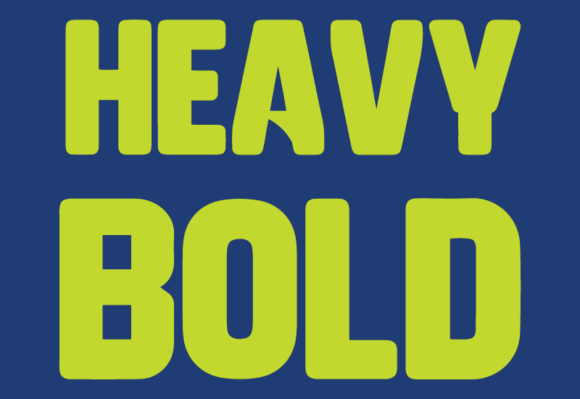
Unleash Your Creativity with the Heavy Bold Font
Have you ever been stuck in a design rut, struggling to find the perfect font to elevate your project? We’ve all been there. But what if I told you that the solution lies in a font that’s as bold as it is beautiful? Enter the Heavy Bold Font, a typeface that’s guaranteed to make your designs stand out from the crowd.
This versatile font is more than just a pretty face – it’s a powerful tool in your design arsenal. With its clean lines and bold strokes, the Heavy Bold Font is perfect for making statements in logos, headlines, and any design element that demands attention. Whether you’re a seasoned pro or just starting out, this font is sure to be a valuable addition to your toolkit.
Heavy Bold Font Key Features
- Font Family: Heavy Bold Font is a sans-serif font family designed for use in digital media.
- Unique Characteristics: Heavy Bold Font features a distinctive, bold, and heavy design with sharp lines and edges, making it ideal for headlines, titles, and other attention-grabbing text.
- Language Support: Supports a wide range of languages, including Latin, Cyrillic, Greek, and many others, ensuring its versatility in global applications.
Designer Review: Heavy Bold Font
I recently had the chance to work with the Heavy Bold Font, and I must say it’s a mixed bag. On the one hand, here are some things that really shine: ✨
- Its bold, eye-catching design is perfect for making headlines and titles stand out.
- The font is highly legible, even at smaller sizes, which is a must for any font.
- It’s incredibly versatile and works well in a variety of contexts, from digital screens to print materials.
However, there are some limitations that might hold you back: ⚠️
- The font can feel a bit overwhelming at times, especially when used in large blocks of text.
- It’s not the most elegant or refined font, and some users might find it too aggressive or even tacky.
- The font’s weight can make it difficult to read for people with certain visual impairments.
Overall, I’d say the Heavy Bold Font is a solid choice for projects where you need to make a statement, but it’s not the best fit for every situation. With a bit of restraint and careful application, it can be a real showstopper. But use it too liberally, and it can quickly become overwhelming.
Heavy Bold Font Practical Application Guide
Tips for Getting the Most Out of Heavy Bold Font
Use heavy bold font to draw attention to important information, highlight key messages, or add emphasis to your text.
Experiment with different font sizes and combinations to create visual interest and balance.
Use heavy bold font in conjunction with other design elements, such as color and images, to create a cohesive and engaging visual identity.
Alternatives to Heavy Bold Font
Black Font
A Black Font is a font with a high level of darkness and density, often used for headings and titles. It’s ideal for creating a sense of luxury, sophistication, or drama. Black Font is often thicker and more condensed than Heavy Bold Font, making it a great choice for titles and headings that need to stand out.
Comparison to Heavy Bold Font: Black Font is bolder and more dramatic, making it suitable for more formal or luxurious designs.
Extra Bold Font
An Extra Bold Font is a font that is even bolder than Heavy Bold Font, but not as thick as Black Font. It’s ideal for creating a sense of emphasis or importance without being too overwhelming. Extra Bold Font is a great choice for titles, headings, and call-outs that need to grab attention.
How do I ensure my heavy bold font is accessible for users with visual impairments?
To ensure accessibility, use a font that meets the Web Content Accessibility Guidelines (WCAG 2.1) and has a high contrast ratio. Also, provide an alternative text description for images and graphics that use the heavy bold font. Finally, consider using a font with a clear and readable character set, and avoid using